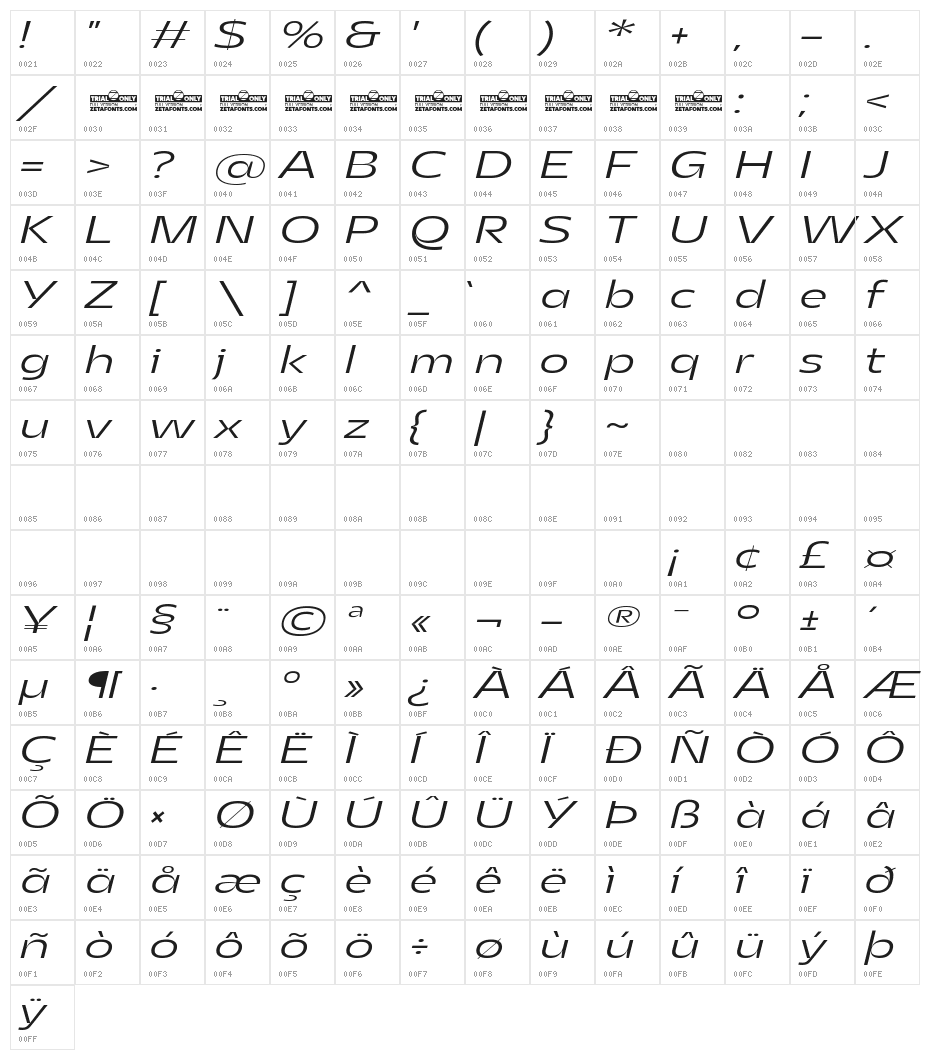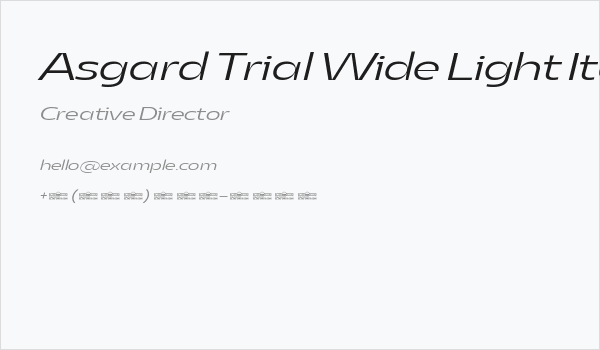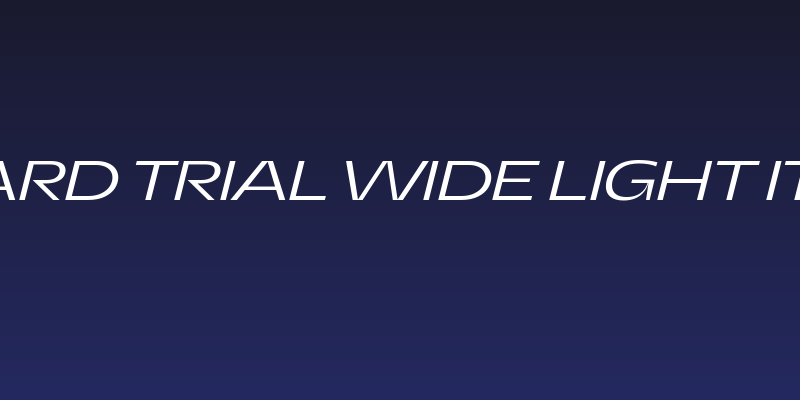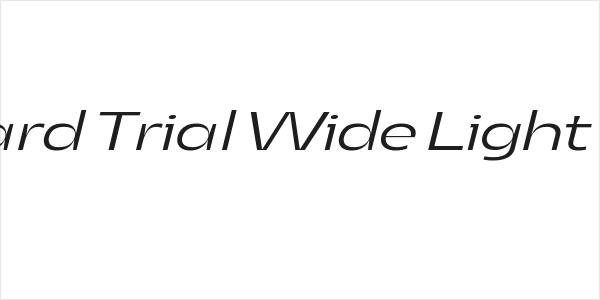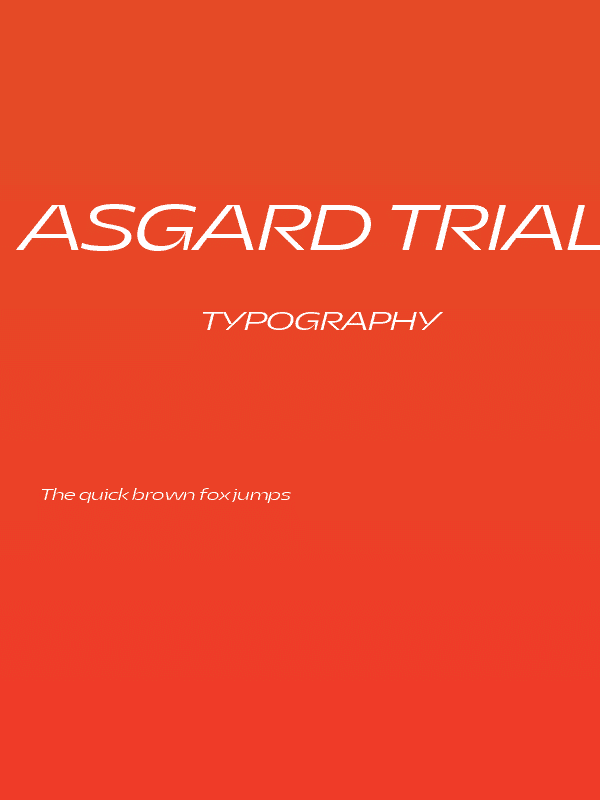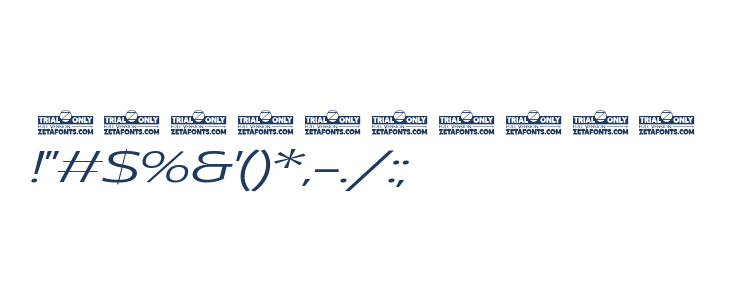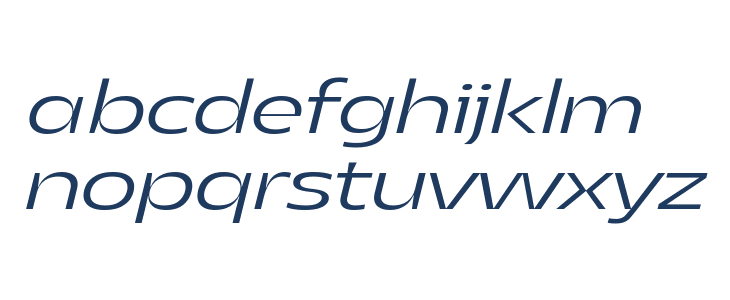
Asgard Trial Wide Light Italic Font
Asgard Trial Wide Light Italic Description
This font features a sleek and modern design with a wide stance and light weight. The italic style adds a dynamic and forward-leaning appearance, making it suitable for contemporary and stylish applications. The characters are well-spaced, contributing to a clean and readable look. The font's smooth curves and sharp angles create a harmonious balance, ideal for projects that require a touch of elegance and sophistication. Its versatility allows it to be used in various design contexts, from digital to print media.
| Proposed Projects | Ideal for branding, advertising, editorial design, and digital media projects. |